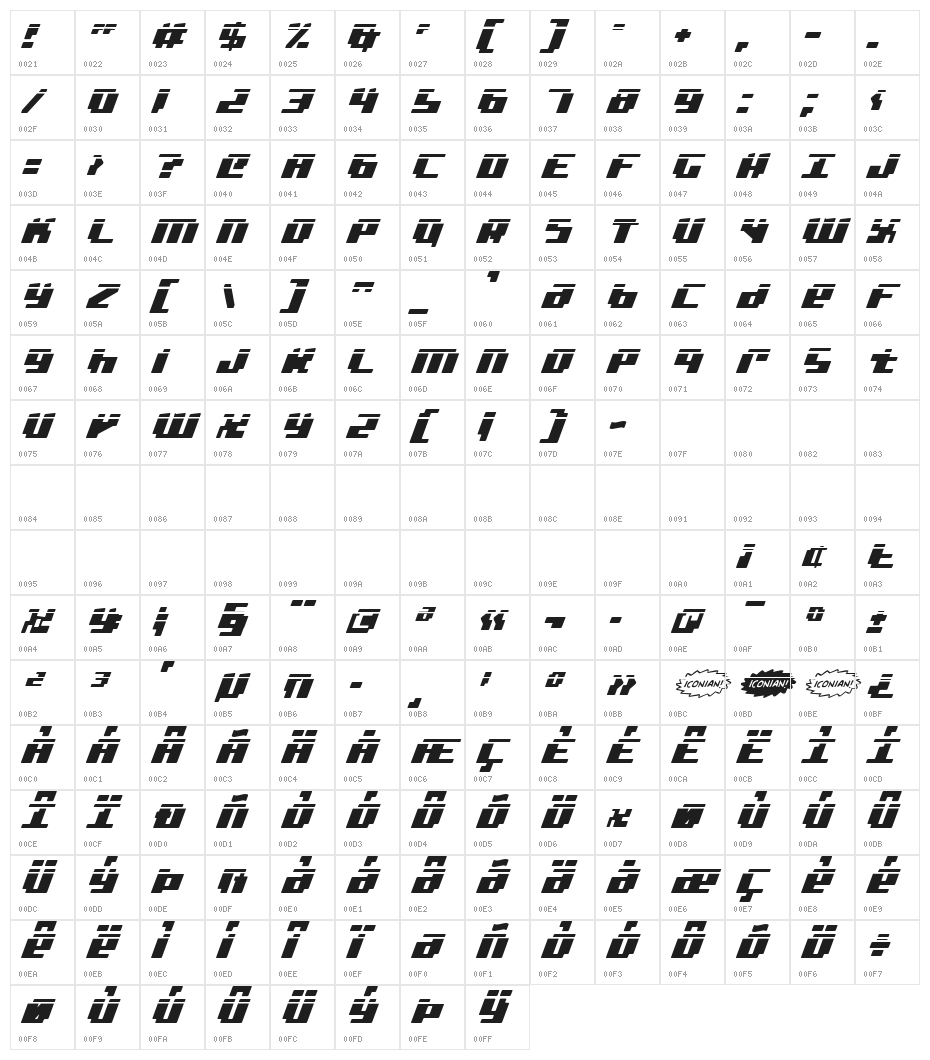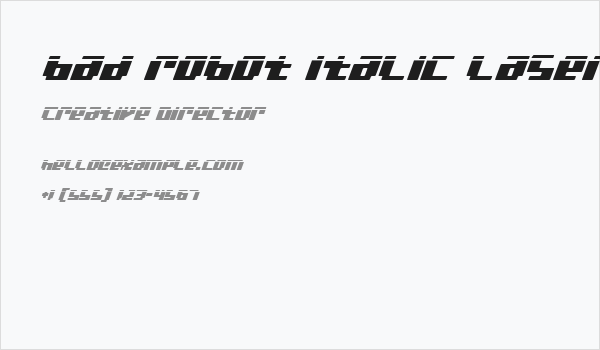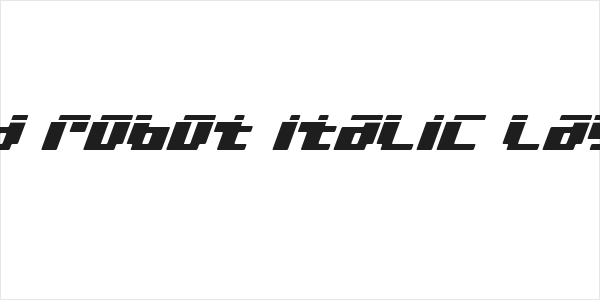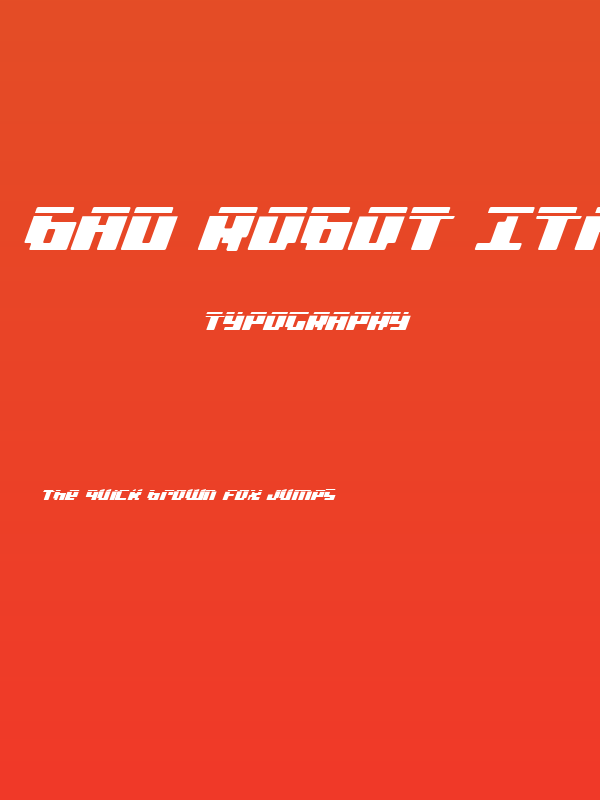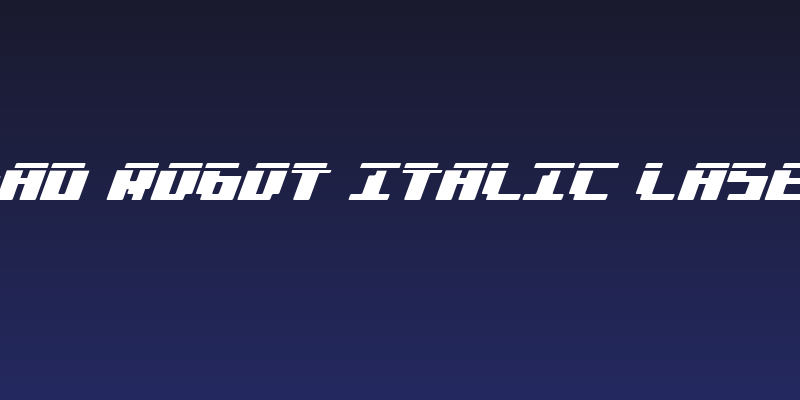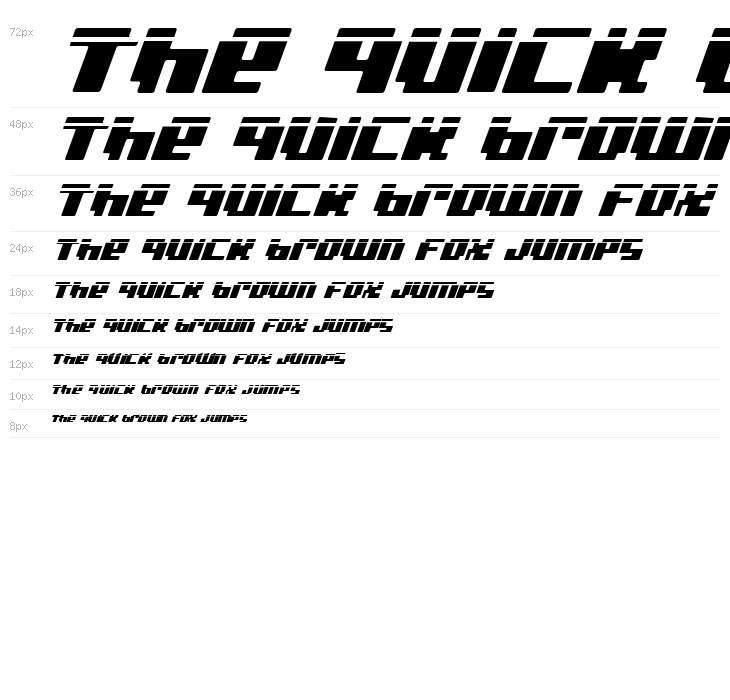
bad robot italic laser Font
bad robot italic laser Description
This font features a bold, futuristic design with a distinct italic slant, giving it a dynamic and forward-moving appearance. The characters are constructed with sharp angles and straight lines, creating a mechanical and robotic feel. The uppercase and lowercase letters maintain a consistent style, with the lowercase slightly smaller but equally bold. Numbers and special characters follow the same angular, geometric design, ensuring uniformity across all glyphs. The font's strong presence and unique style make it ideal for projects that require a modern, tech-inspired aesthetic.